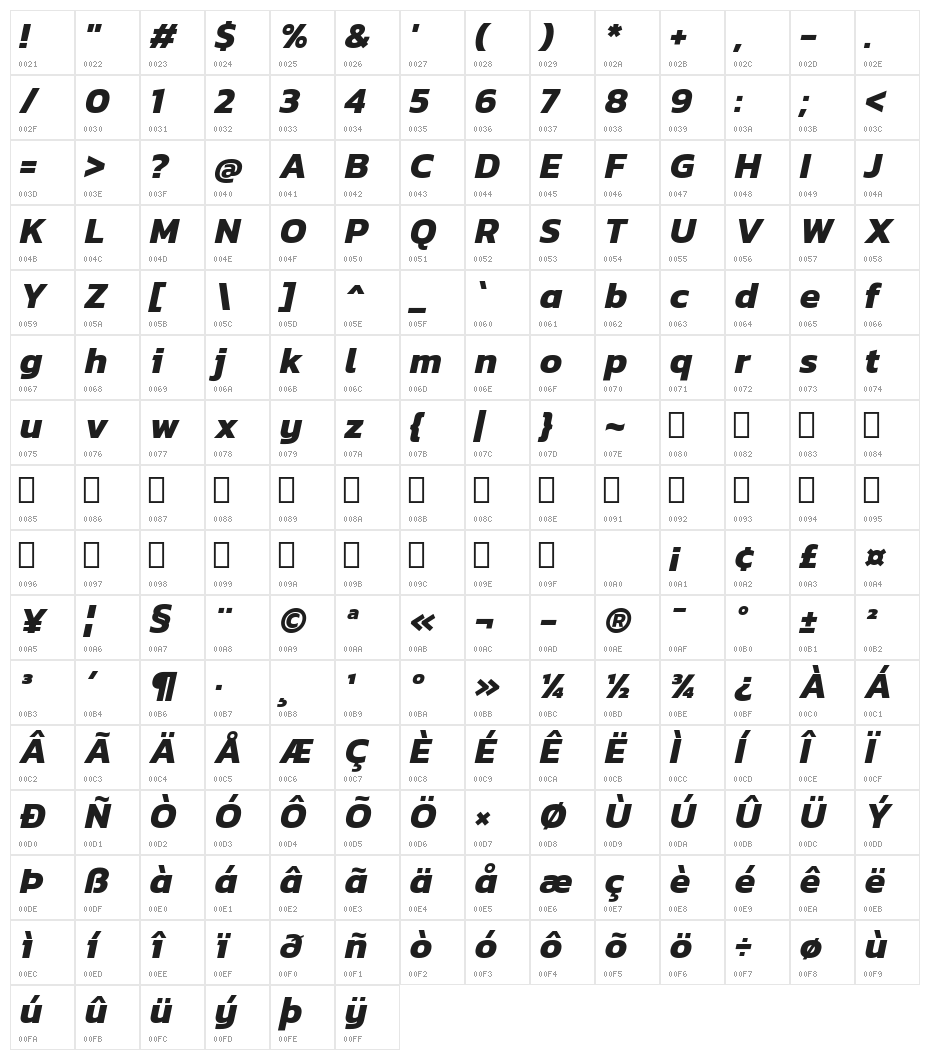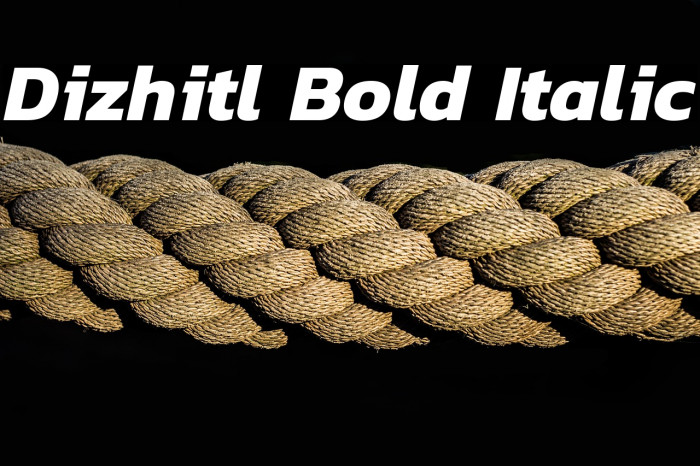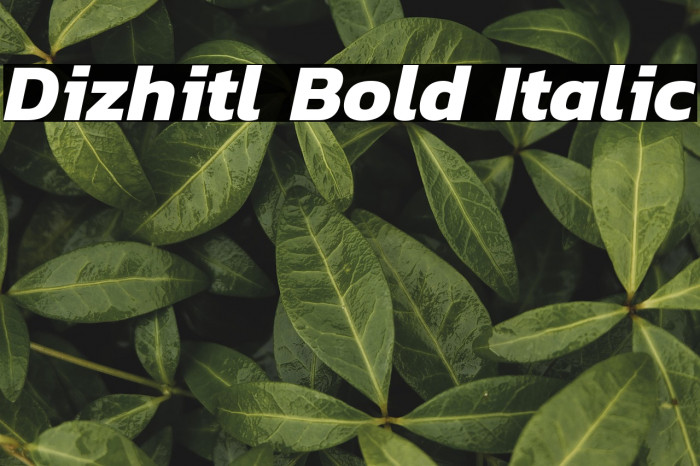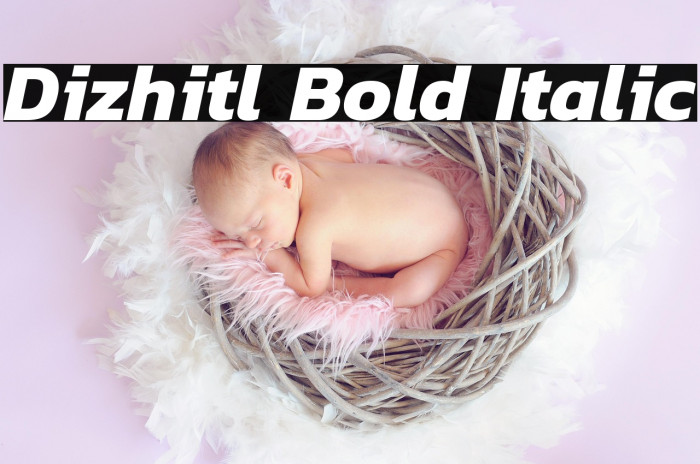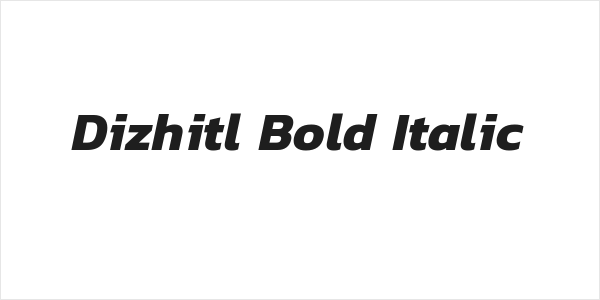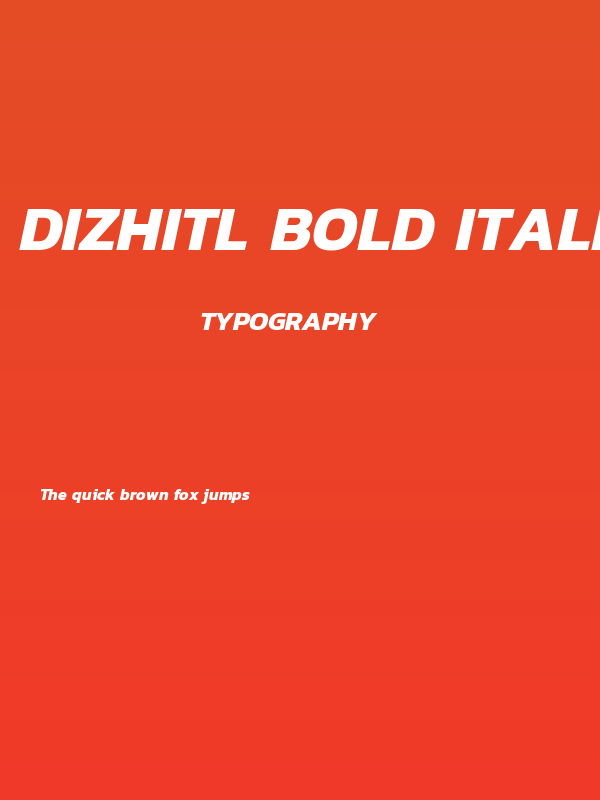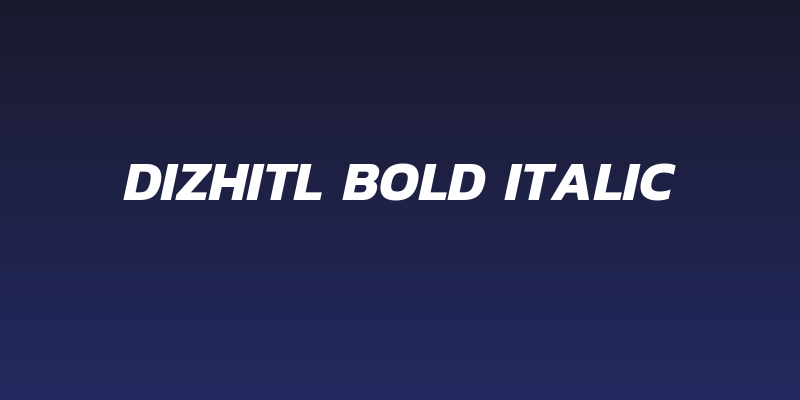
Dizhitl Bold Italic Font
Dizhitl Bold Italic Description
This font features a bold and italicized style, characterized by its strong and assertive appearance. The letters are slightly slanted, giving a dynamic and forward-moving impression. The strokes are thick and consistent, providing a sense of stability and confidence. The uppercase and lowercase letters maintain a uniform width, enhancing readability. The numbers and special characters are designed to match the boldness of the alphabet, ensuring a cohesive look across all text elements. This font is ideal for making impactful statements and grabbing attention.
Proposed ProjectsIdeal for headlines, posters, branding, and advertising where a strong, impactful presence is needed.